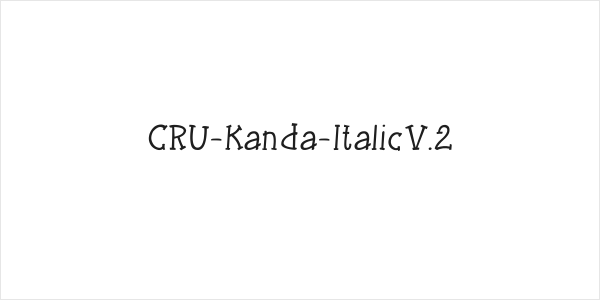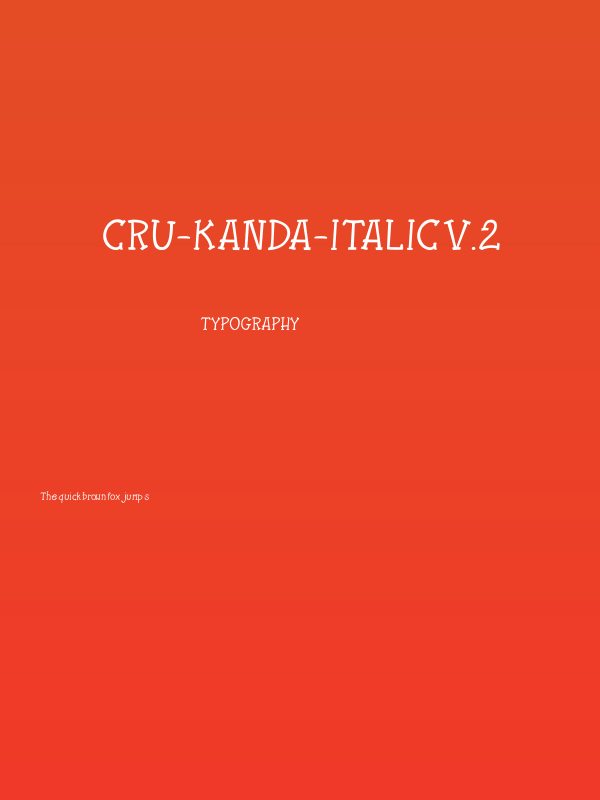
CRU-Kanda-Italic V.2 Font
CRU-Kanda-Italic V.2 Description
This font features a playful and dynamic style with a slight slant, giving it an italic appearance. The characters have a whimsical, hand-drawn quality with varying stroke widths that add a lively and informal touch. The uppercase letters are bold and prominent, while the lowercase letters maintain a consistent flow, enhancing readability. The numbers and special characters follow the same playful design, making the font suitable for creative and artistic projects. Its unique style makes it stand out, perfect for capturing attention in headlines or logos.
| Overall Style | Playful, Artistic |
| Proposed Projects | Ideal for children's books, creative posters, playful branding, and artistic invitations. |